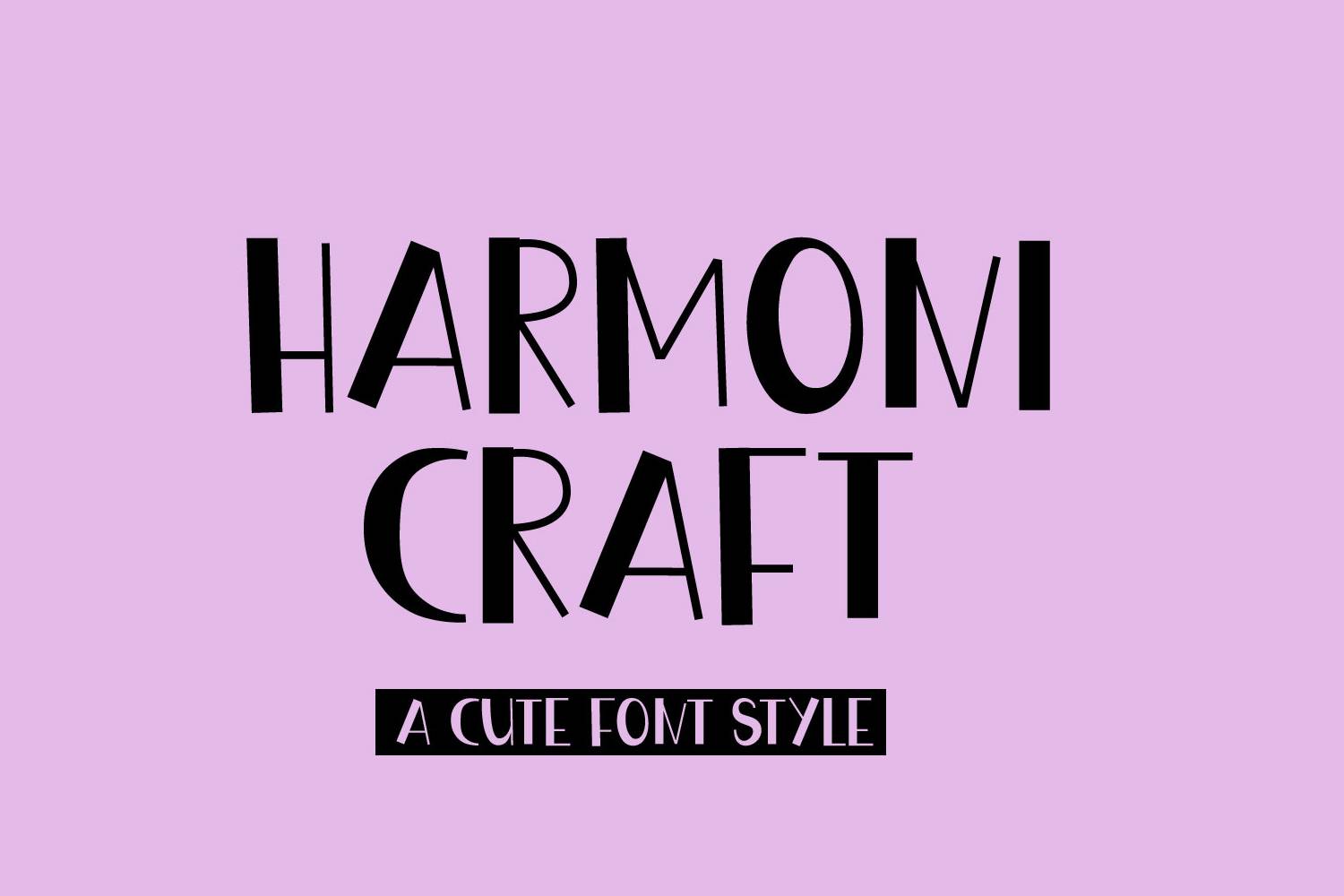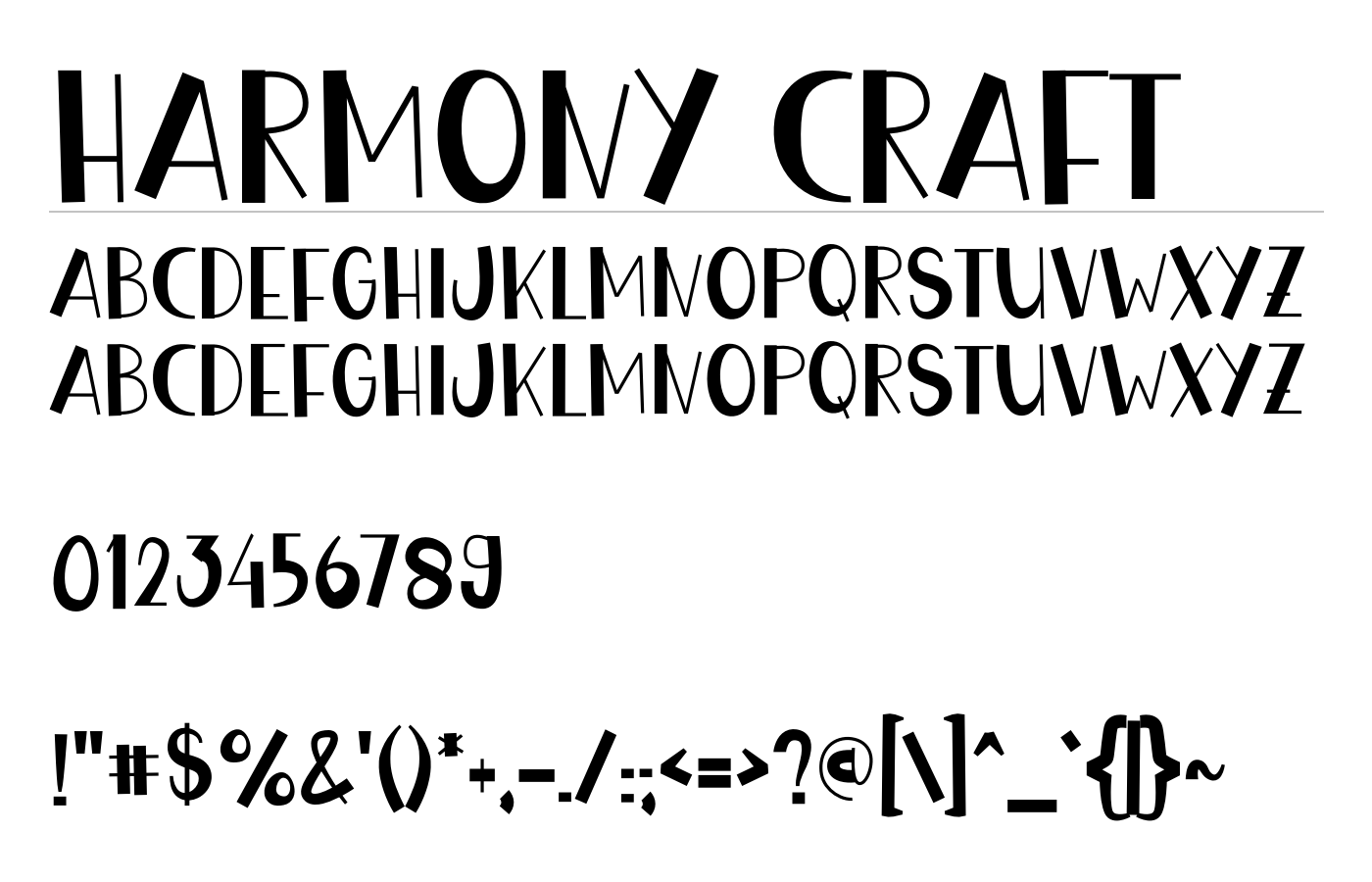
Harmoni Craft is a playful sans serif font with a quirky, hand-crafted feel, characterized by its mix of thick and thin strokes and irregular letter shapes. Its upright, slightly condensed forms and unique character details bring a friendly, creative personality that works well for artistic branding, children’s projects, and casual editorial use. This font adds charm and individuality to designs needing an approachable, fun vibe.
Harmoni Craft Font